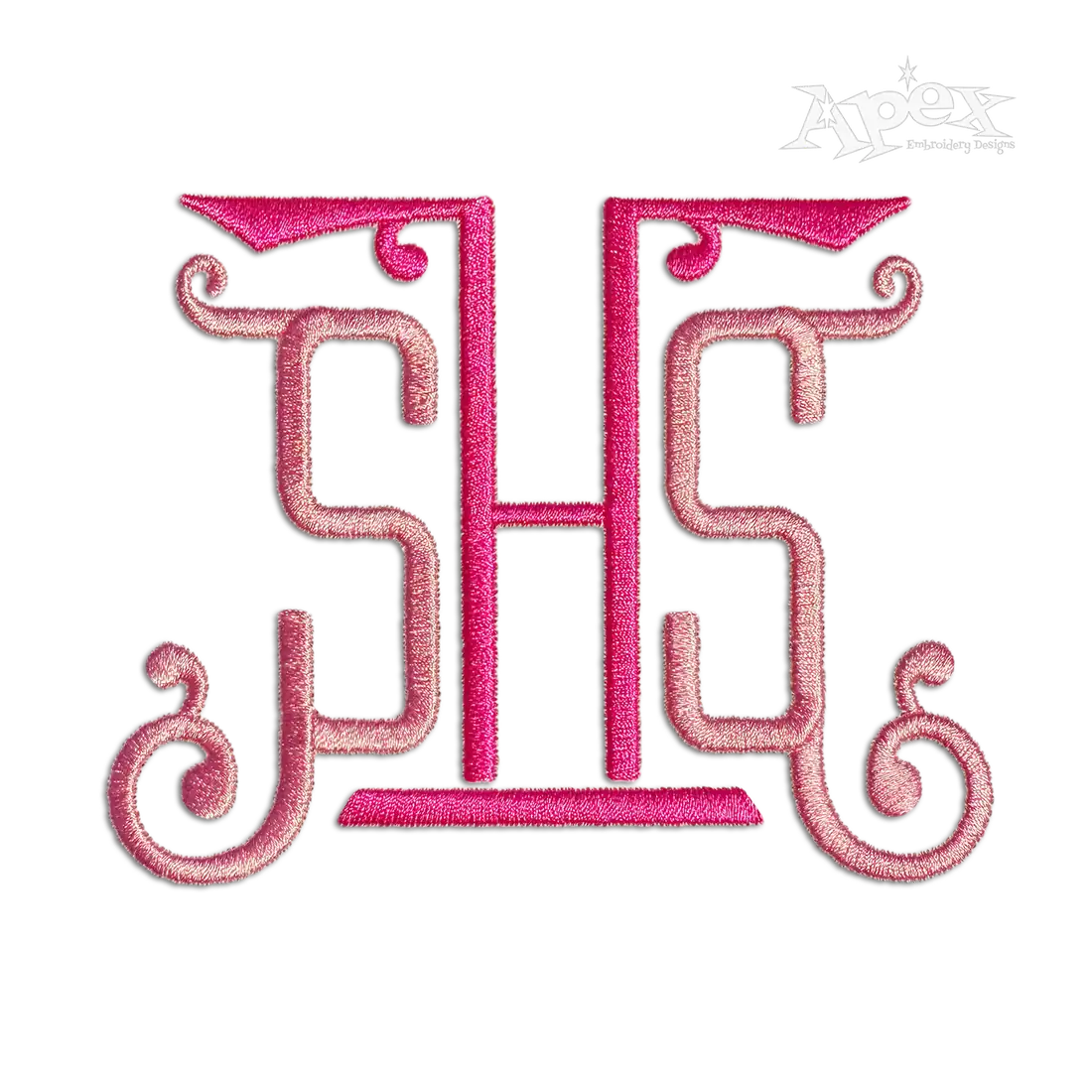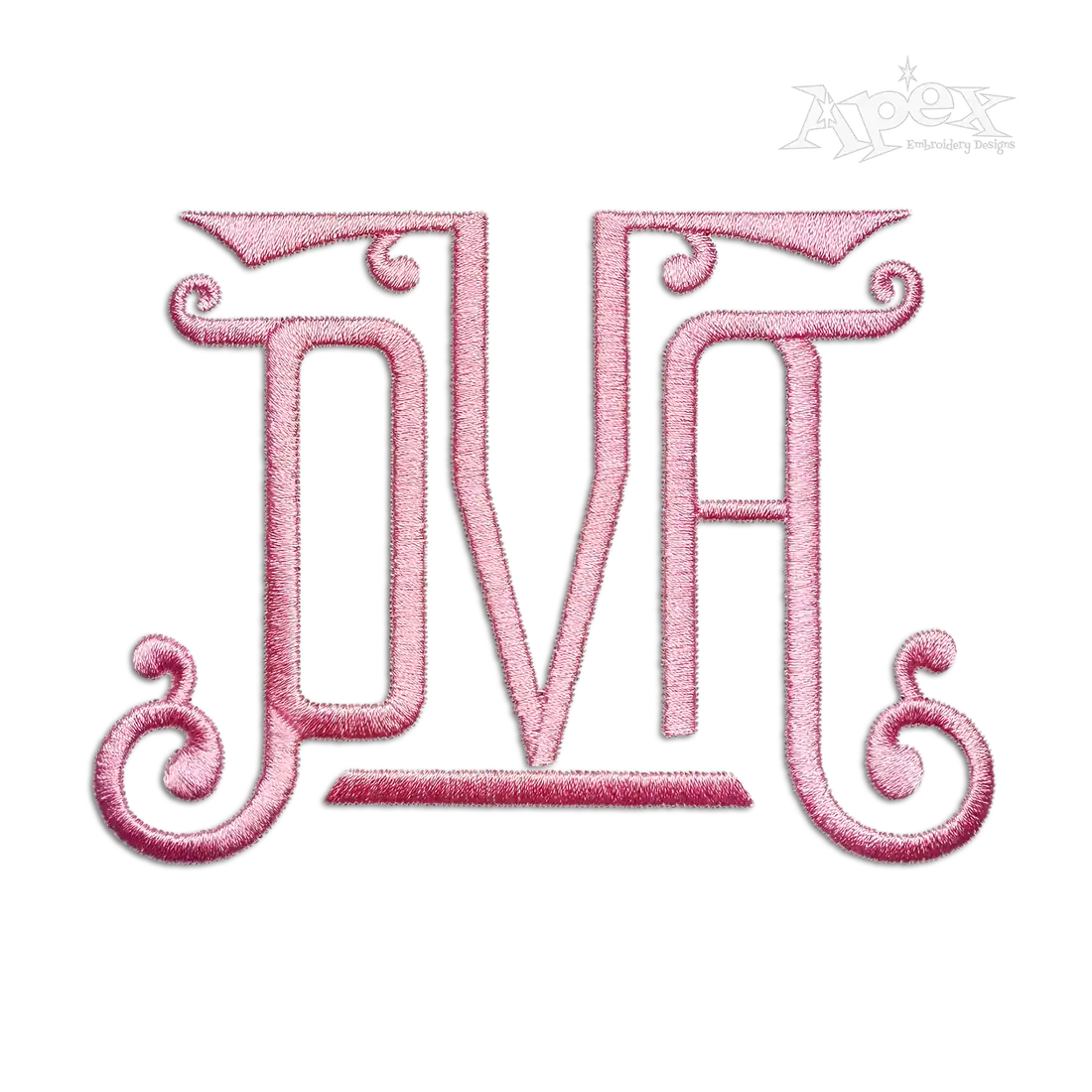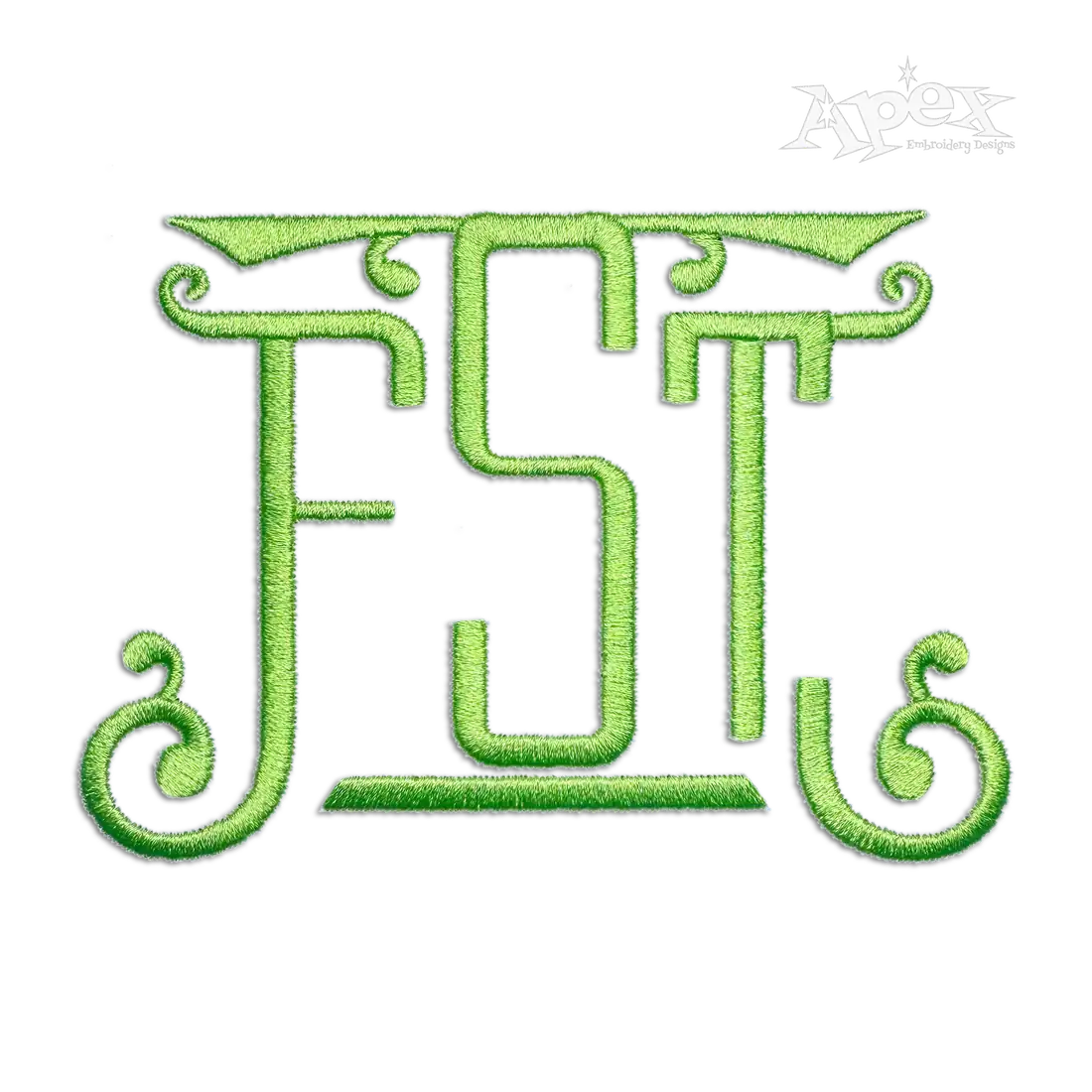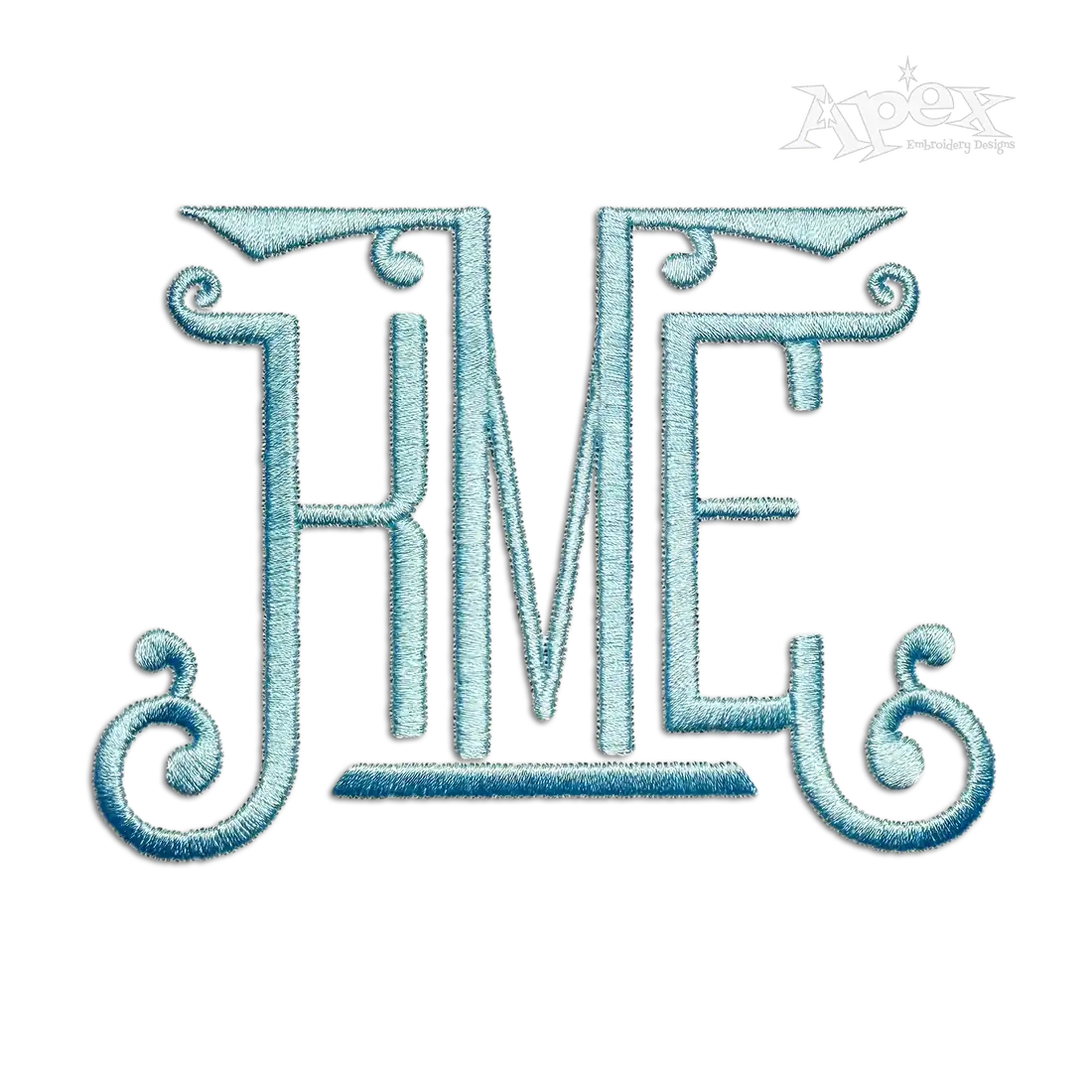
Pillar Monogram Embroidery Font
Drawing inspiration from the poised grace of Asian architectural pavilions and classic Chinoiserie garden follies, the Pillar Monogram Embroidery Font captures an aura of grand, stately refinement. Each three-letter composition is structured like a magnificent tiered pagoda, balancing regal symmetry with fluid, sweeping curves. When stitched out, the interplay of light across the dense satin columns yields a sculpted, embossed presence on fabric, elevating traditional monogramming into a display of bespoke textile artistry reminiscent of vintage grandmillennial estates and curated Asian-influenced salons.
Project Ideas for Pillar Monogram
The architectural silhouettes of this royal pagoda framework invite endless creative possibilities for personalized gifting and bespoke home decor:
- Linen Cocktail Napkins: Stitch crisp 3-inch monograms in tonal or rich bamboo green thread onto hemstitched linen for an elevated bar cart presentation.
- Heirloom Bedding: Embellish the flange of crisp percale pillowcases or the fold-down border of a luxury top sheet with a stately 4-inch or 6-inch focal initial.
- Bespoke Resort Wear: Adorn the chest pocket of a crisp linen cabana shirt or the center back of a bridal silk kimono robe with this distinctive Chinoiserie accent.
- Heavy Canvas Totes & Weekenders: Create an upscale summer travel essential by stitching a high-contrast 6-inch monogram onto structured canvas or natural jute.
- Powder Room Guest Towels: Bring a boutique hotel sensibility to monogrammed waffle or plush terry hand towels.
Because the Pillar Monogram possesses strong vertical symmetry and upward-sweeping contours, mindful placement enhances its regal impact:
- Napkins & Linens: Place diagonally across a 45-degree corner, positioned approximately 1.5 to 2 inches from the hemstitch edge, allowing the flared silhouette to echo the fabric's angle.
- Robes & Shirts: Align the center column directly over the chest pocket zone, centering the design between the placket and side seam for balanced wearability.
- Pillows & Cushions: Center the 6-inch monogram squarely on square or bolster throw pillows, anchoring the composition amidst botanical prints or contrast piping.
- Towels: Center the monogram 2 to 3 inches above the woven decorative band or hem for an orderly, balanced drape.
Pillar Monogram Craft & Letterform Details
Digitizing architectural lettering requires extraordinary sensitivity to balance, underlay stability, and thread direction. Rather than relying on simple automated satin fills, each curve and tier of the Pillar Monogram has been crafted with directional stitching that mimics carved wood and lacquered pagodas. The outer flanking letters taper gracefully inward, framing the prominent central initial in a grand architectural embrace. Underneath the lustrous topstitching lies a carefully mapped foundation of structural travel stitches and edge-walk underlays, engineered to prevent tunneling on lightweight linens while resisting thread sinking on deep-pile terry. The result is a clean, sculptural stitchout that holds its crisp profile through years of treasured use.